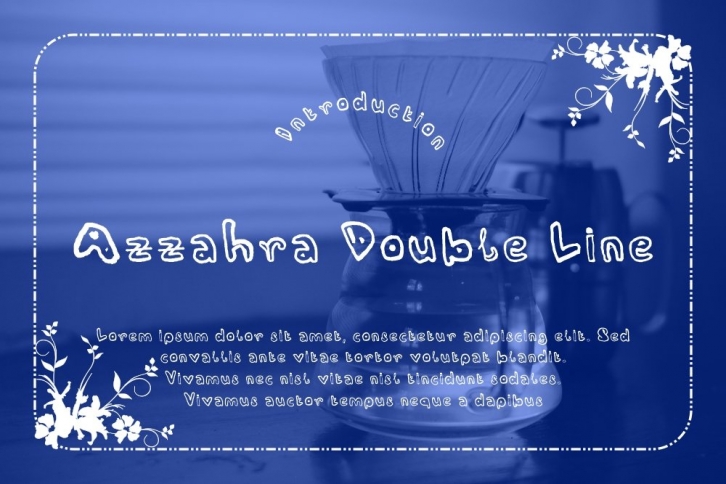
Azzahra Double Line Typeface is a vintage display type. It suitable for any vintage type needs and more Happy creating.Very suitable for you who do exploration